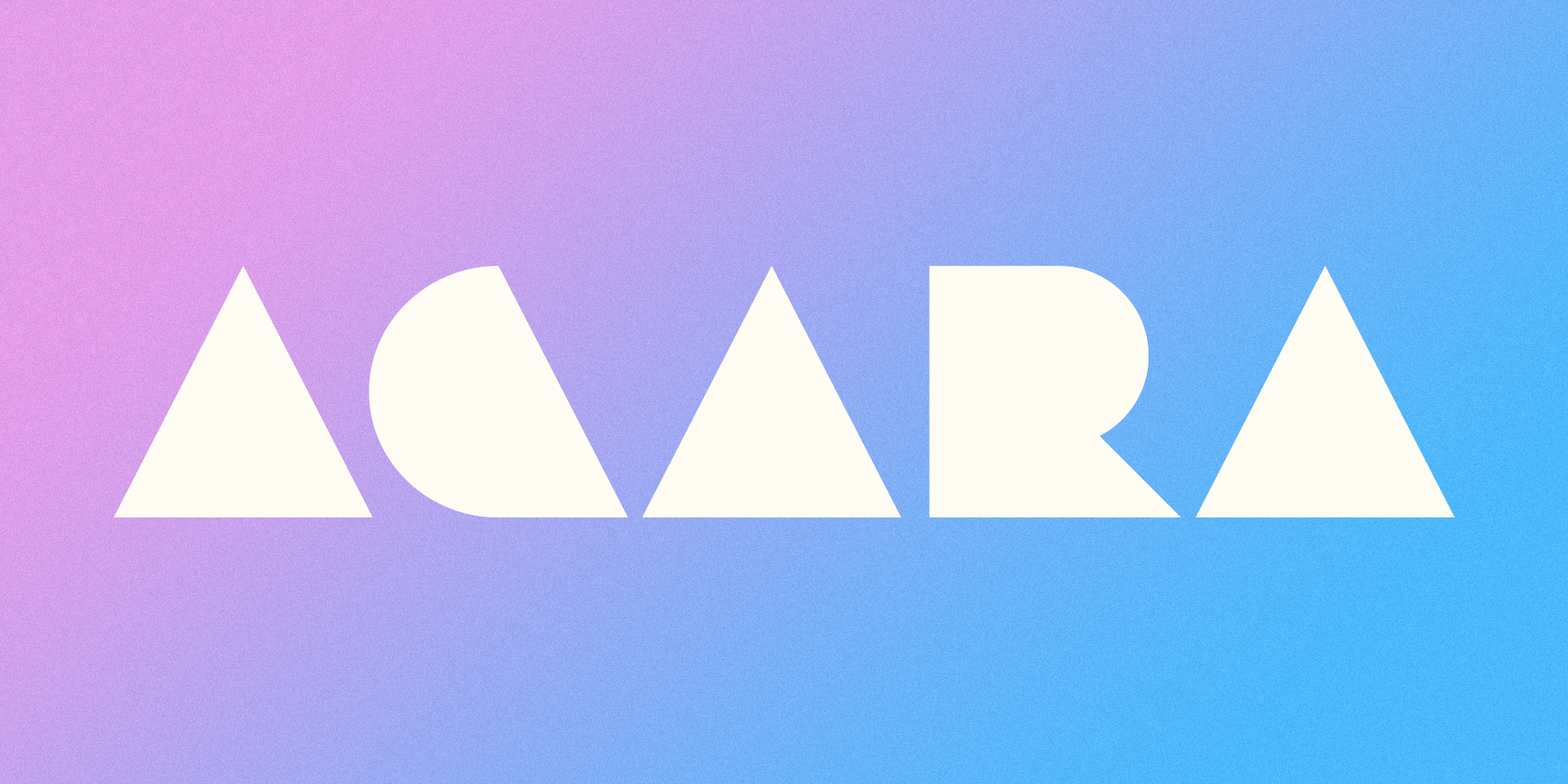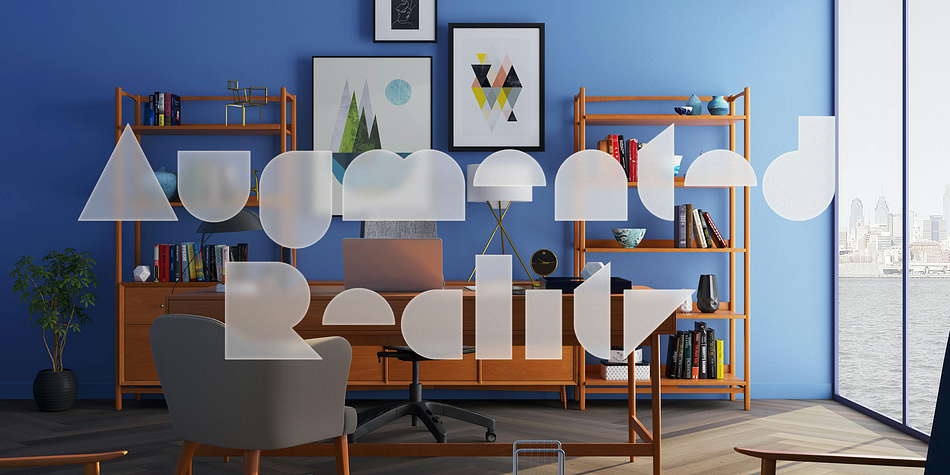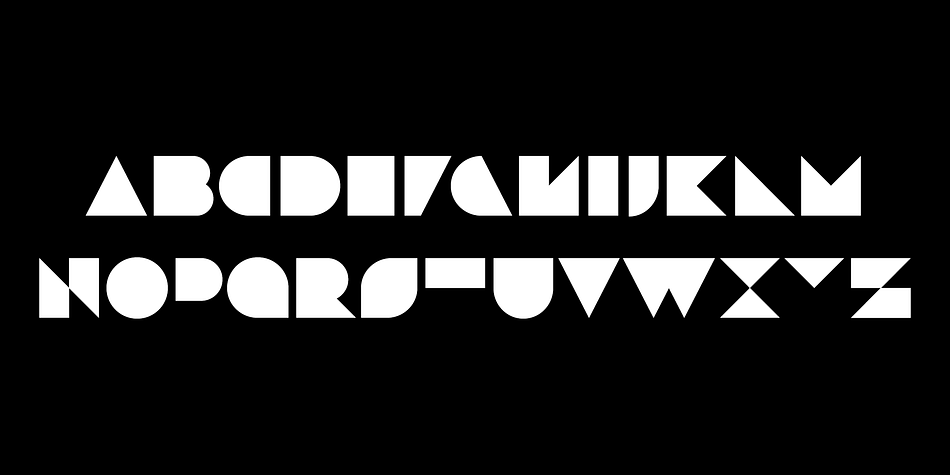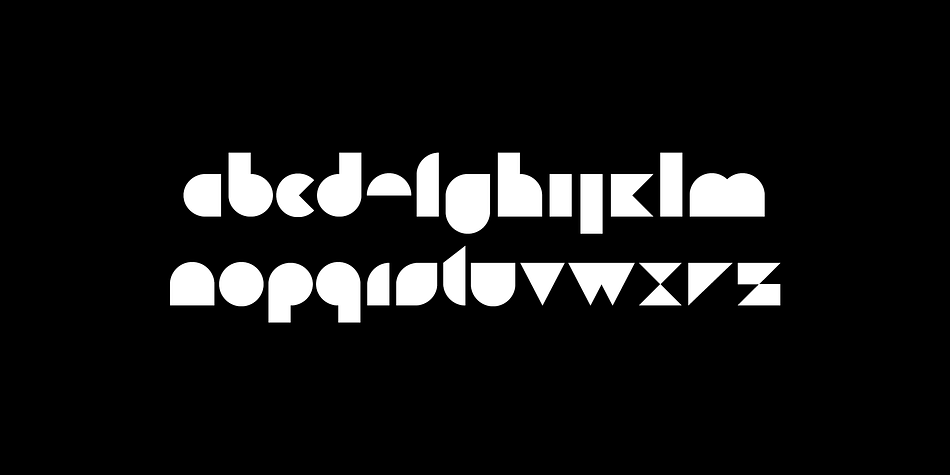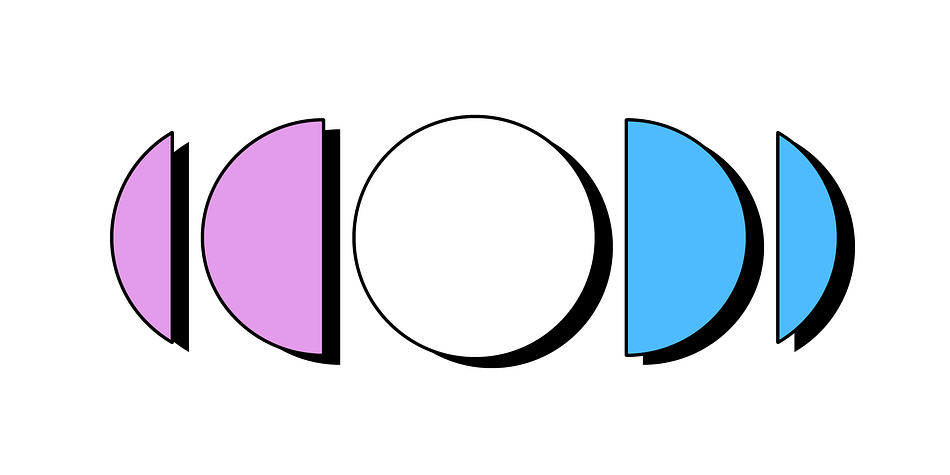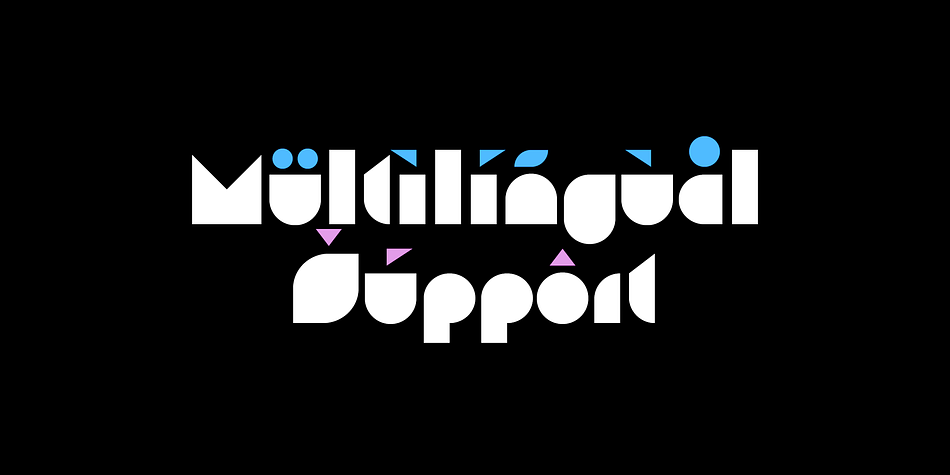
Agara
Agara is a display font family published by Par Défaut.
Agara is a Geometric filled font
With characters in their simplest form, Agara is composed of Latin letters and their accents for your Multilingual creations.
OpenType features : (Fraction, Numerator, Denominator, Ordinal, Case Sensitive, Discretionary Ligature, Contextual Alternate, Stylistic Set, Access All Alternate)
Precision :
Numerator - Denominator : also includes currency ( $ € £ ¥ ¢ )
Ordinal : Uppercase & Lowercase ordinal
Case Sensitive characters : ( : ; ¡ ¿ - ( ) [ ] { } – — ‹ › « » • · )
Discretionary Ligature : Æ Œ æ œ
Stylistic Sets : Alt “1” // Alt “( )”
Contextual Alternate : Auto Case Sensitive